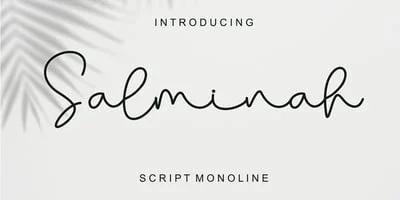
Salminah Font
Salminah Font is perfect for peaceful wellness centers, serene meditation retreat branding, harmonious spa signage, tranquil yoga studio identity, mindful lifestyle blogs, gentle healing practice materials, calm therapeutic centers, balanced nutrition campaigns, and soothing social media content. This serene typeface brings peaceful harmony and gentle sophistication to both digital and print design applications.
Salminah Font is exciting because it embodies the gentle grace and inner peace of spiritual tranquility, making it an exceptional choice for designers who want to convey serenity and harmony with authentic peaceful appeal. Its flowing letterforms and gentle character provide the perfect combination of serene elegance and functional clarity, ensuring your projects communicate peace, balance, and harmonious excellence that resonates with audiences seeking genuine wellness experiences and spiritual tranquility.
The Salminah Font family includes peaceful weight variations and serene elements, featuring light, regular, and medium weights with complementary gentle styles, harmonious ligatures, and peaceful decorative flourishes. Each style maintains consistent tranquil aesthetics while offering flexibility for different wellness applications, allowing designers to create calming visual systems that reflect peace values and harmonious sophistication.
Whether you're designing for wellness brands, spiritual organizations, or peaceful projects, Salminah Font delivers authentic peaceful appeal and serene sophistication that connects with audiences seeking genuine tranquility experiences and wellness excellence. This premium typeface offers designers the gentle elegance and peaceful charm needed to create designs that communicate spiritual harmony, inner peace, and wellness authenticity effectively. The font's serene character makes it perfect for wellness branding, peaceful campaigns, and harmonious applications where authentic tranquility credibility is essential. Download Salminah Font today and harmonize your creative projects with genuine peaceful sophistication and serene typography excellence that defines wellness design standards.